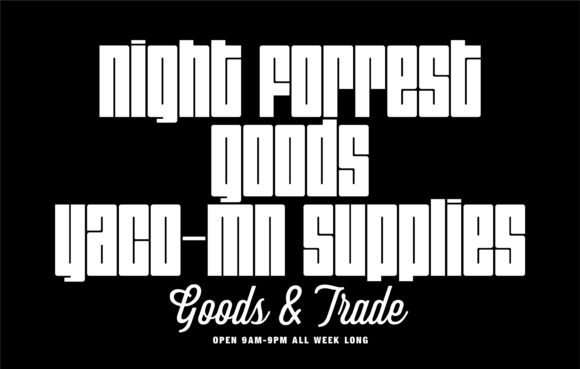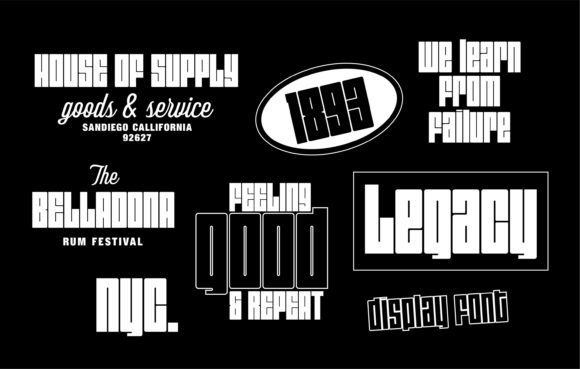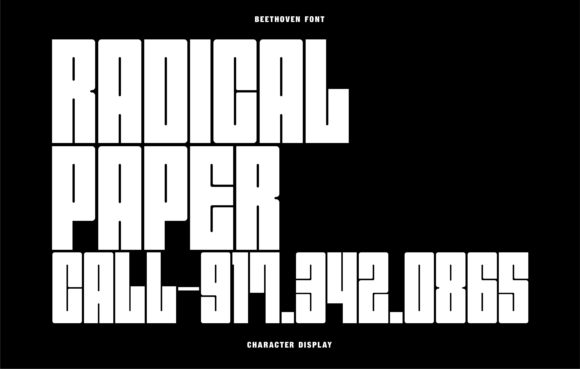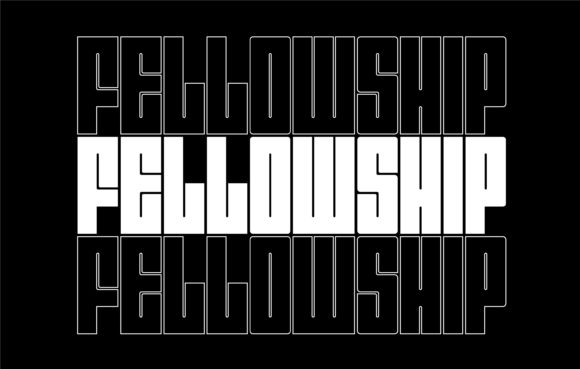
Introduction to Beethoven Font
Beethoven is a bold, thick lettered and incredibly techno looking display font.
It will look stunning on any poster flyer or print Use this font for your designs and explore its endless possibilities.
Key Features of Beethoven Font
Beethoven Font offers exceptional quality and versatility, making it a valuable addition to your design toolkit. Whether you’re creating for personal projects or commercial use, Beethoven Font delivers professional results.